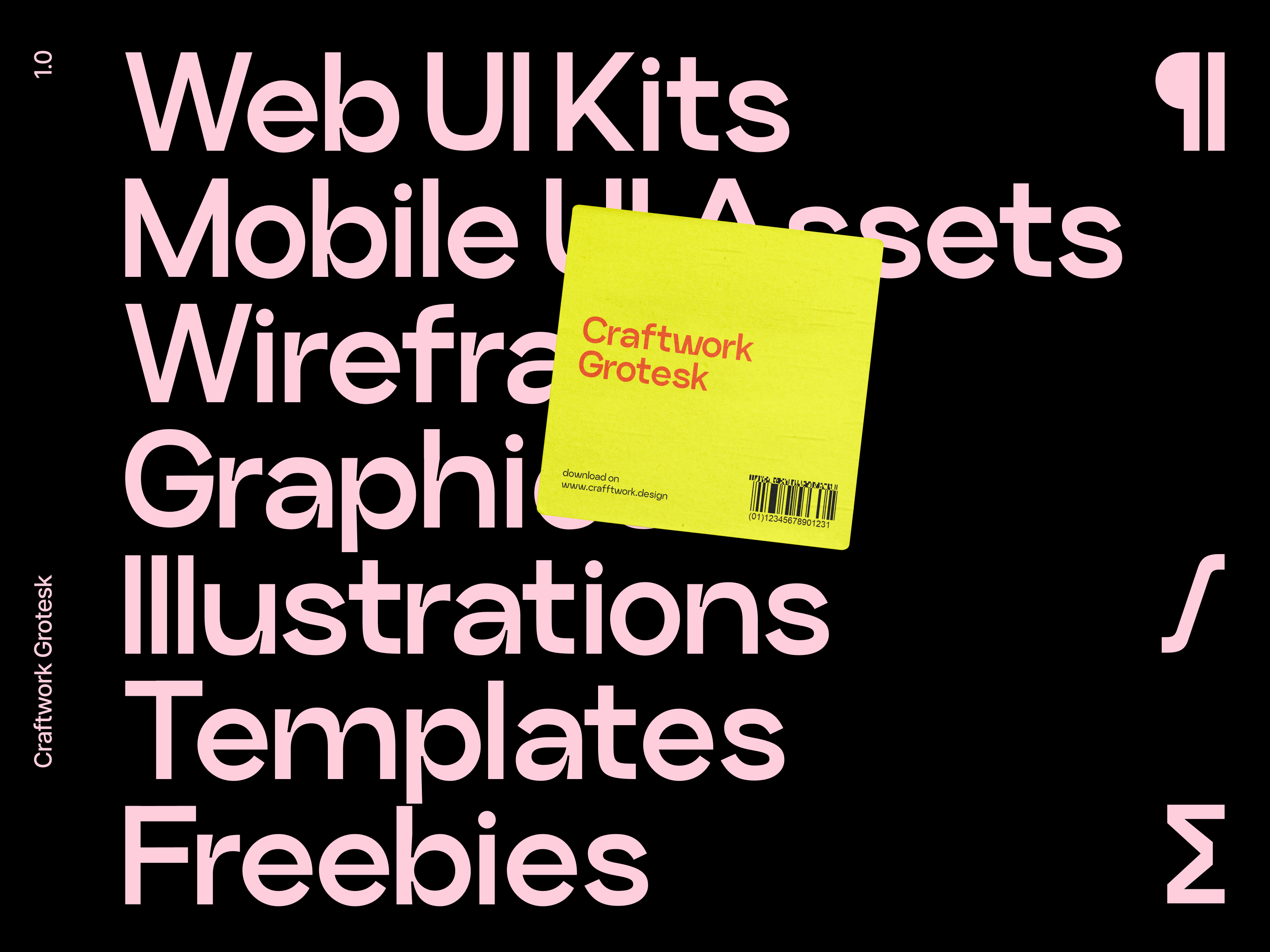
Craftwork Grotesk Font
Unique grotesk font created in basic latin set for using in sophisticated designs.
Fancy and catchy font for maintaining a sophisticated mood in design. Craftwork Grotesk is available in 5 weights from Regular to Heavy and 2 styles: Basic and Mono. Suitable both for headings and large amount of text.